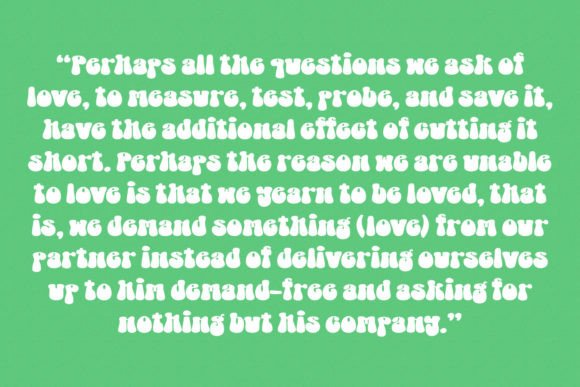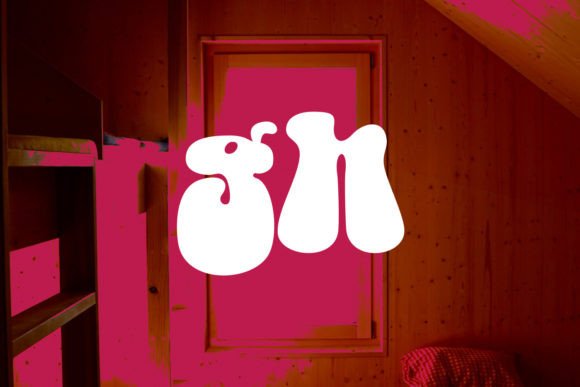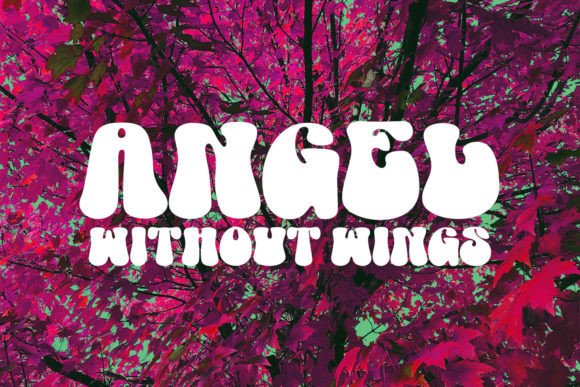
Introduction to Skin Slow Font
Have you ever been working on a creative project, pouring your heart and soul into it, only to feel like something’s missing? That’s when you stumble upon the perfect design resource to take it to the next level – and that’s exactly what Skin Slow Font does.
This psychedelic display font is a game-changer for designers looking to add a high-quality, retro touch to their projects. With its groovy vibe, Skin Slow Font is sure to make a statement and leave a lasting impression. Whether you’re working on a poster, flyer, or social media graphic, this font is the perfect addition to elevate your design.
Key Features of Skin Slow Font
- High-quality design for creative projects, suitable for digital art and design.
- Features a unique, slow-paced aesthetic with a transparent background, allowing for easy layering and manipulation.
- Designed to be highly versatile, suitable for a wide range of creative projects, from graphics to web design.
Honest Review: Skin Slow Font
As a designer, I’m always on the lookout for high-quality fonts to elevate my creative projects. The Skin Slow Font has been a recent addition to my design resource library, and I must say, it’s been a game-changer.
One of the standout features of the Skin Slow Font is its transparent background, which makes it easy to use in combination with other design elements. It’s also worth noting that the font is highly customizable, allowing you to adjust the style and size to suit your needs.
While the Skin Slow Font is an excellent addition to any design library, there are a few limitations to be aware of: ⚠️ The font may not be suitable for very small text sizes, and it can be a bit tricky to use in certain digital applications. Additionally, the font’s unique style may not be to everyone’s taste.
Overall, I’m thoroughly impressed with the Skin Slow Font. It’s a fantastic design resource that’s perfect for adding a touch of personality to your creative projects.
Pros:
- Highly versatile and customizable
- Unique, hand-drawn aesthetic
Cons:
- May not be suitable for very small text sizes
- Can be tricky to use in certain digital applications
Tips for Getting the Most Out of Skin Slow Font
Skin Slow Font is perfect for use in logos, branding materials, and other creative projects. It’s also great for use in social media graphics, presentations, and documents. With its high-quality design and transparent background, Skin Slow Font is a versatile font that can be used in a variety of contexts.